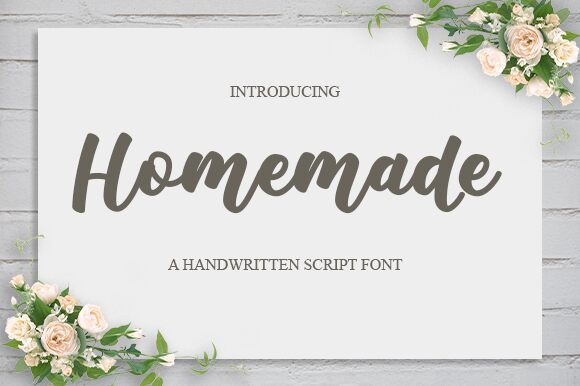
Homemade
Homemade font, designed by Nirmala Creative, is a bold handwritten typeface that brings an authentic and personal touch to any project. Its unique style makes it suitable for a wide range of applications, from rustic wedding invitations and greeting cards to food packaging and branding designs. With its natural and welcoming feel, Homemade font adds warmth to menus, posters, logos and social media posts. This versatile typeface is perfect for bringing a homemade charm to your projects while still maintaining a professional look. Try out Homemade font today and see how it can elevate your design game!